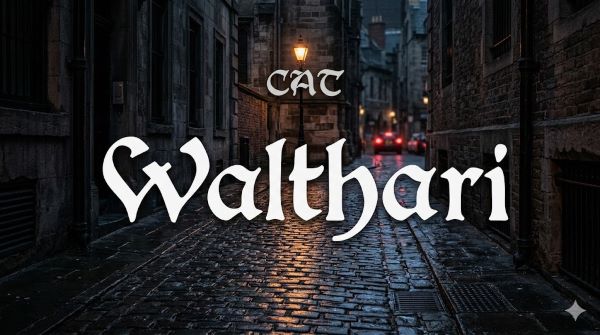
Walthari Font
Walthari is a captivating typographic revival by Peter Wiegel, breathing new life into an 1899 design by Heinz König originally produced for the Rudhard’schen Giesserei of Offenbach. The result is a remarkable fusion: the rich blackletter roots of Jugendstil rotunda intertwined with a Roman structural sensibility, producing a face that feels simultaneously historical and surprisingly modern. Free to use under the SIL Open Font License.